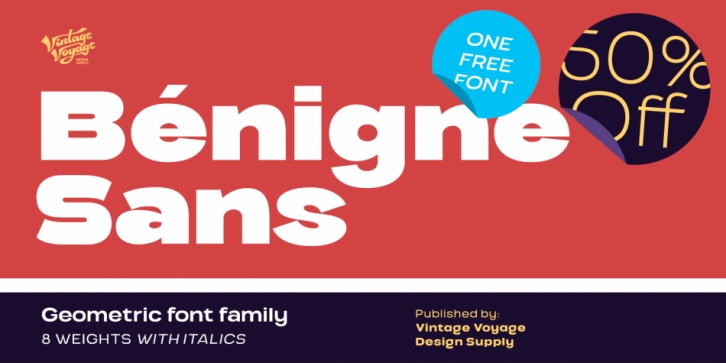
Designed by Pavel Korzhenko, Benigne Sans is a sans serif font family. This typeface has sixteen styles and was published by Vintage Voyage Design.
VVDS Benigne Sans is geometric font family consisting of 8 weights ranging from Thin to Ultra Bold with matching italics. Balanced and gently Thin or fat and heavy Ultra Bold, good wide range of widths, which allow use this font not only as a Headers, also as sub-headers or block texts. Also, I love how it looks in infographics. VVDS Benigne Sans is latin-based multilingual and contains all mathematics symbols.
OpenTypeFeatures Ligatures, alternates, old style numerals and fractions.